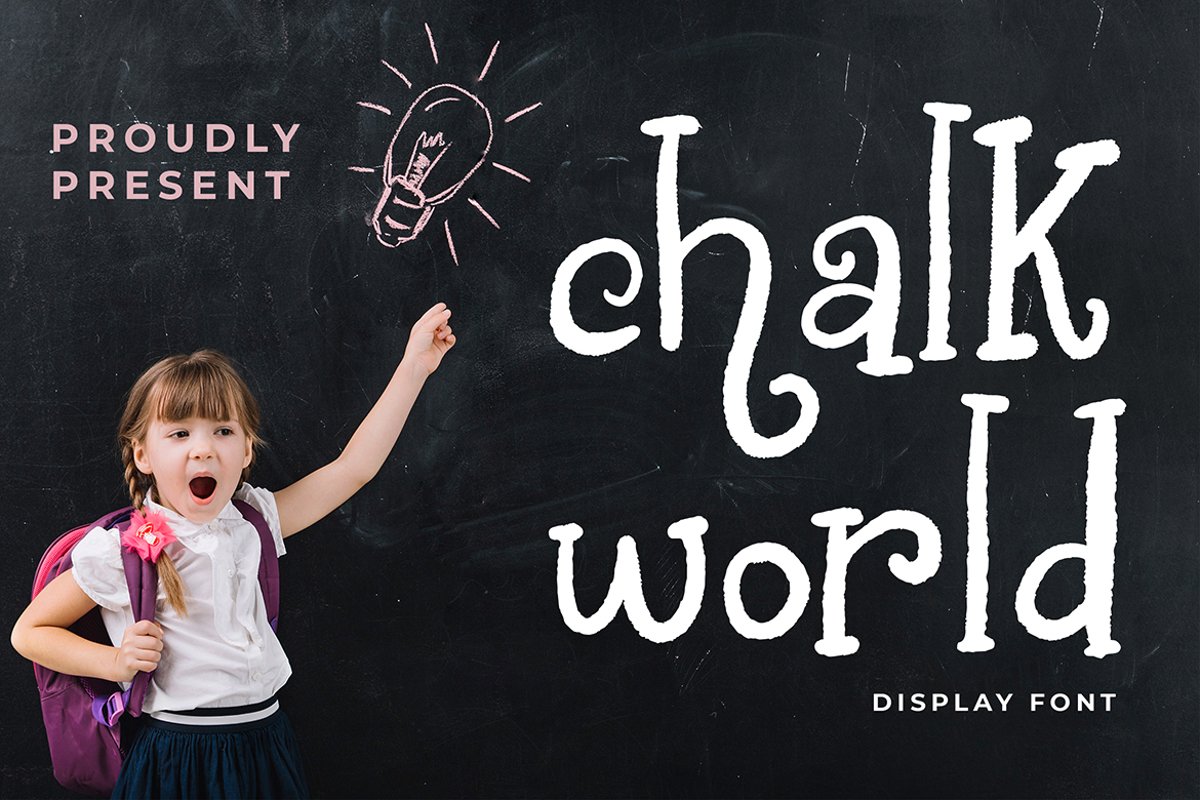
Chalk World Display Font
ChalkWorld
Chalk world is a cute and amazing display font that will make children's themed designs stand out!Chalk world is perfect for branding projects, logo, book cover design, tshirt designs, social media posts, advertisements, product packaging, product designs, label, watermark, invitation, stationery and any projects.What's Included :